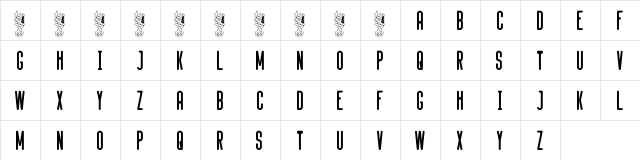
Hysteria Regular
Design Context for Hysteria Typeface
Hysteria offers clean, dependable letterforms without strong stylistic allegiance, making it a practical choice for designers who need flexibility.